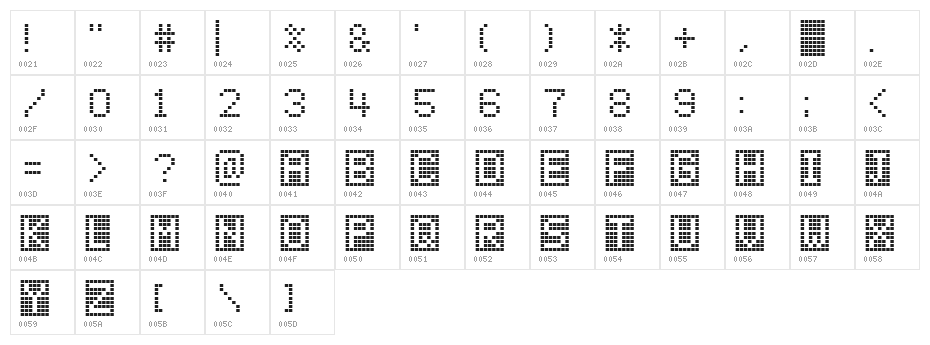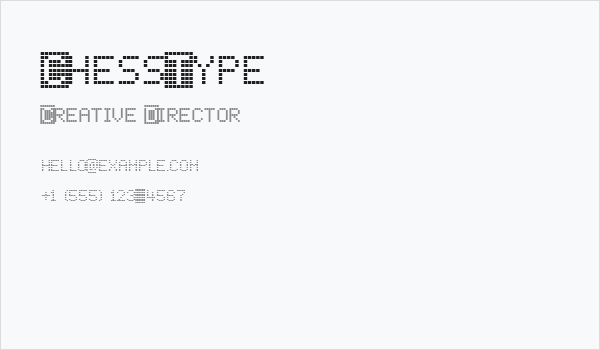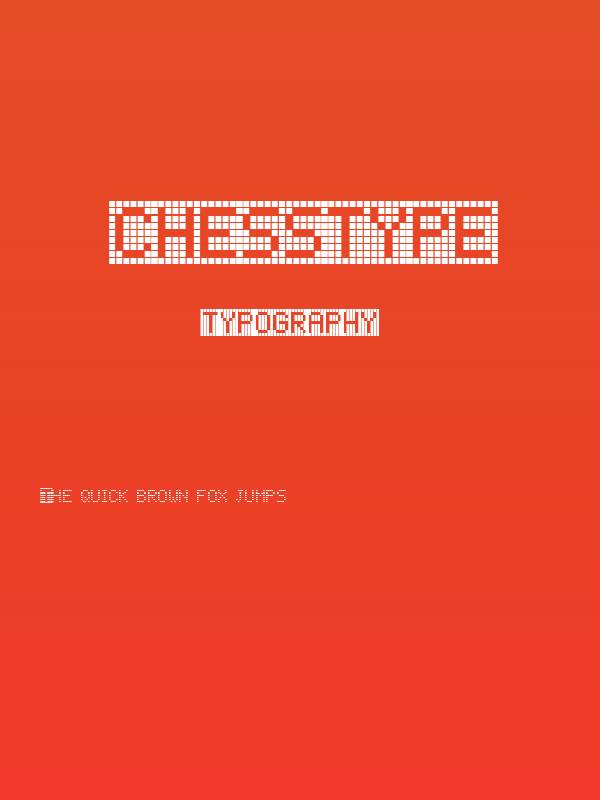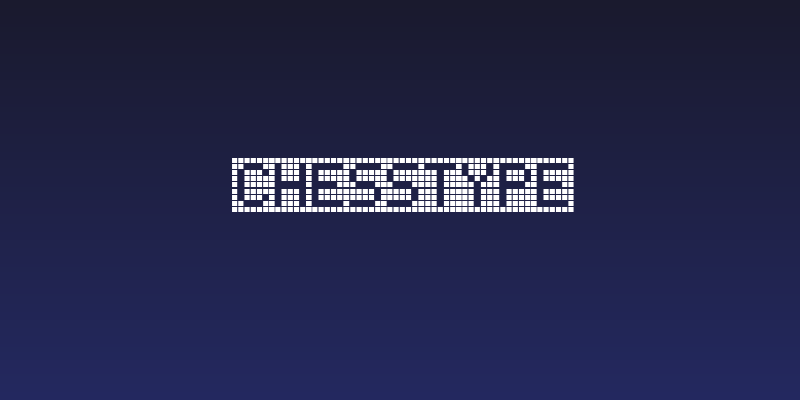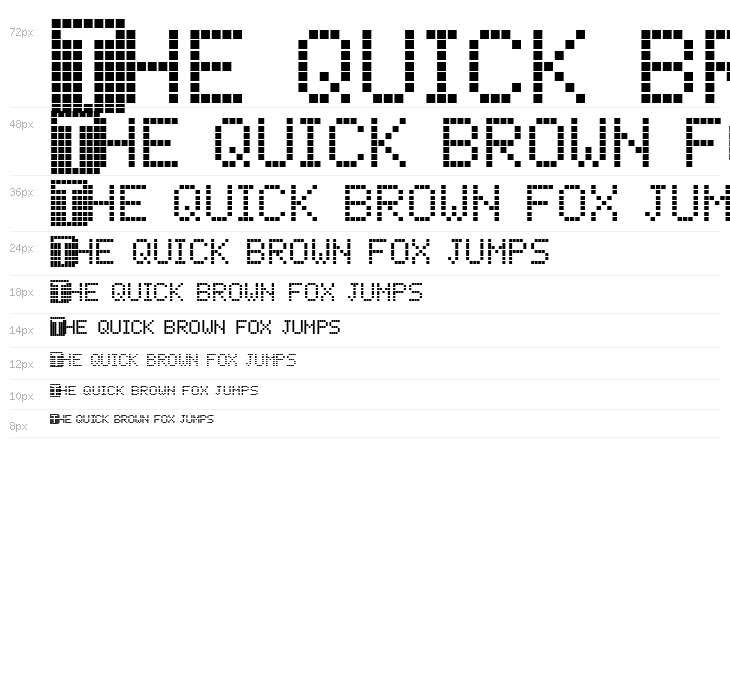
ChessType Font
ChessType Description
This font features a unique, pixelated design reminiscent of digital displays or retro video games. Each character is constructed from a grid of small squares, giving it a blocky, geometric appearance. The uppercase and lowercase letters, as well as numbers and special characters, maintain a consistent style that emphasizes uniformity and simplicity. The font's design is highly legible, making it suitable for digital interfaces or projects that aim to evoke a sense of nostalgia or technological themes. Its distinct style stands out, making it ideal for creative and artistic applications.
| Overall Style | Retro, Digital |
| Use Case | Logos, Headlines, Digital interfaces |
| Proposed Projects | Perfect for video game design, digital art, retro-themed posters, and tech-related branding. |